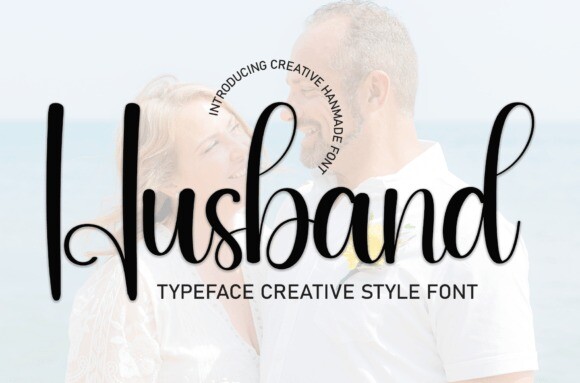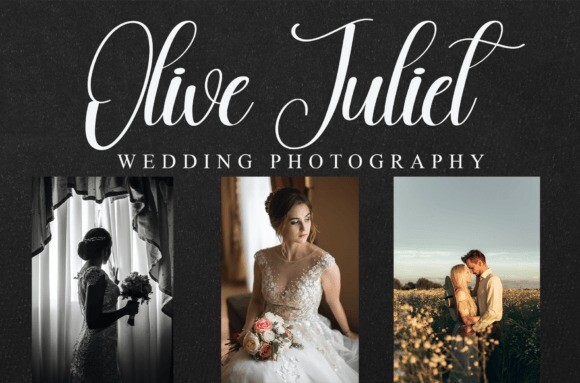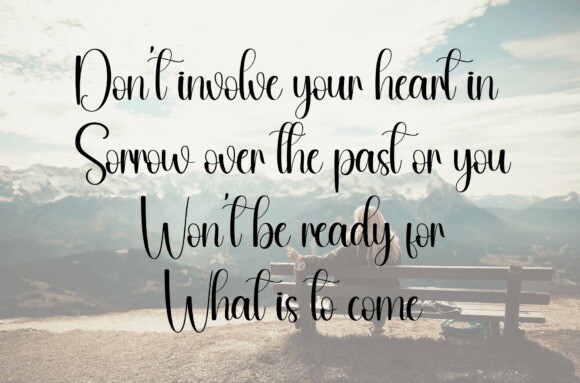
Husband Font
Husband Font is a sweet and friendly handwritten font. Fresh and neat, this font is ideal for writing wedding invitations, cards, or any other design that might need a fun touch!